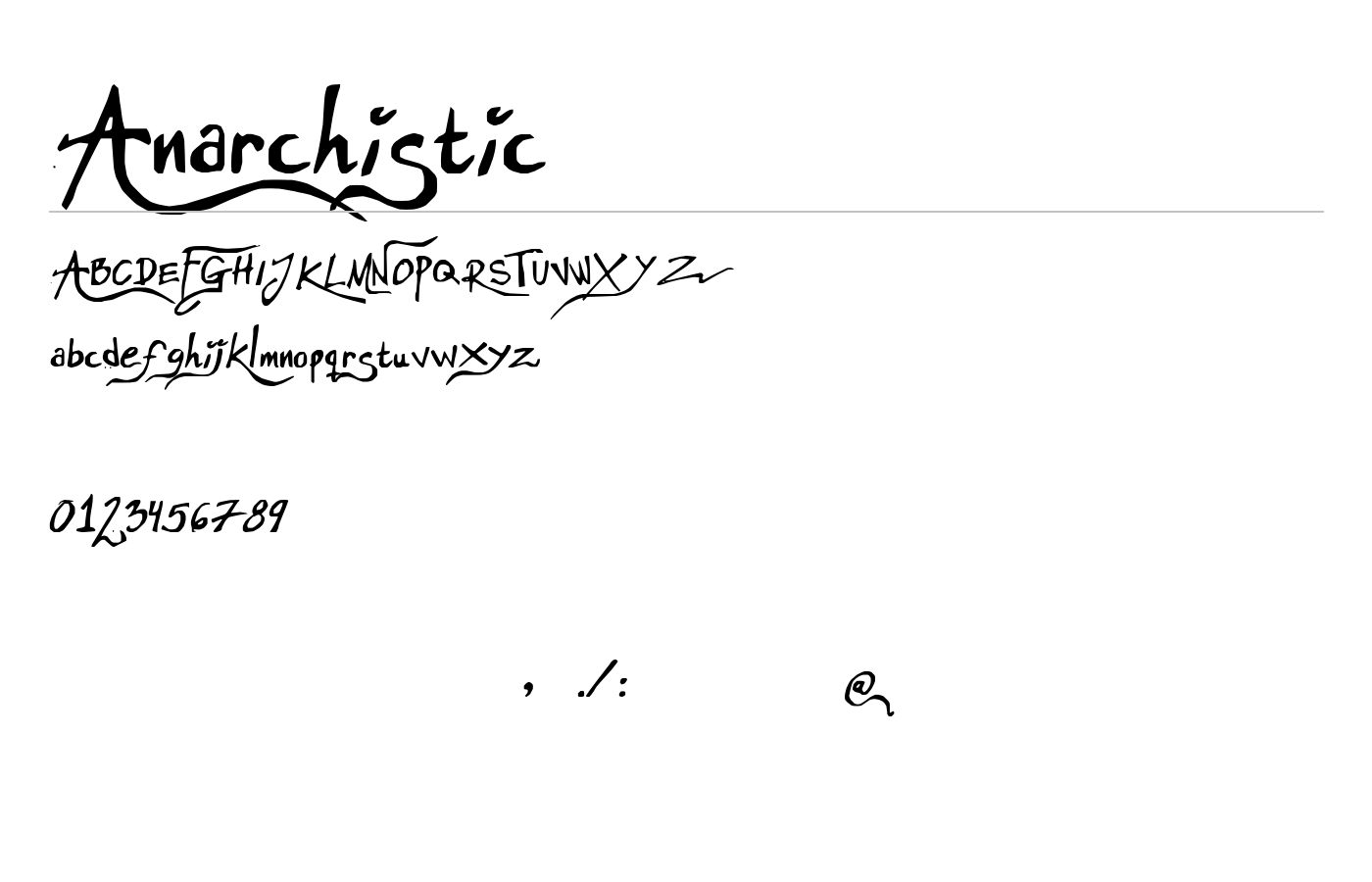
Anarchistic is a distinctive handwritten script font with a playful, slightly chaotic style that captures an edgy and artistic vibe. Its irregular strokes, varied letter heights, and flowing, whimsical swashes give it a casual yet expressive personality, making it ideal for creative branding, posters, and eye-catching headlines. This font works best where a unique, rebellious feel is desired, adding character and energy to designs that seek to stand out.
Anarchistic Font
About Anarchistic Font